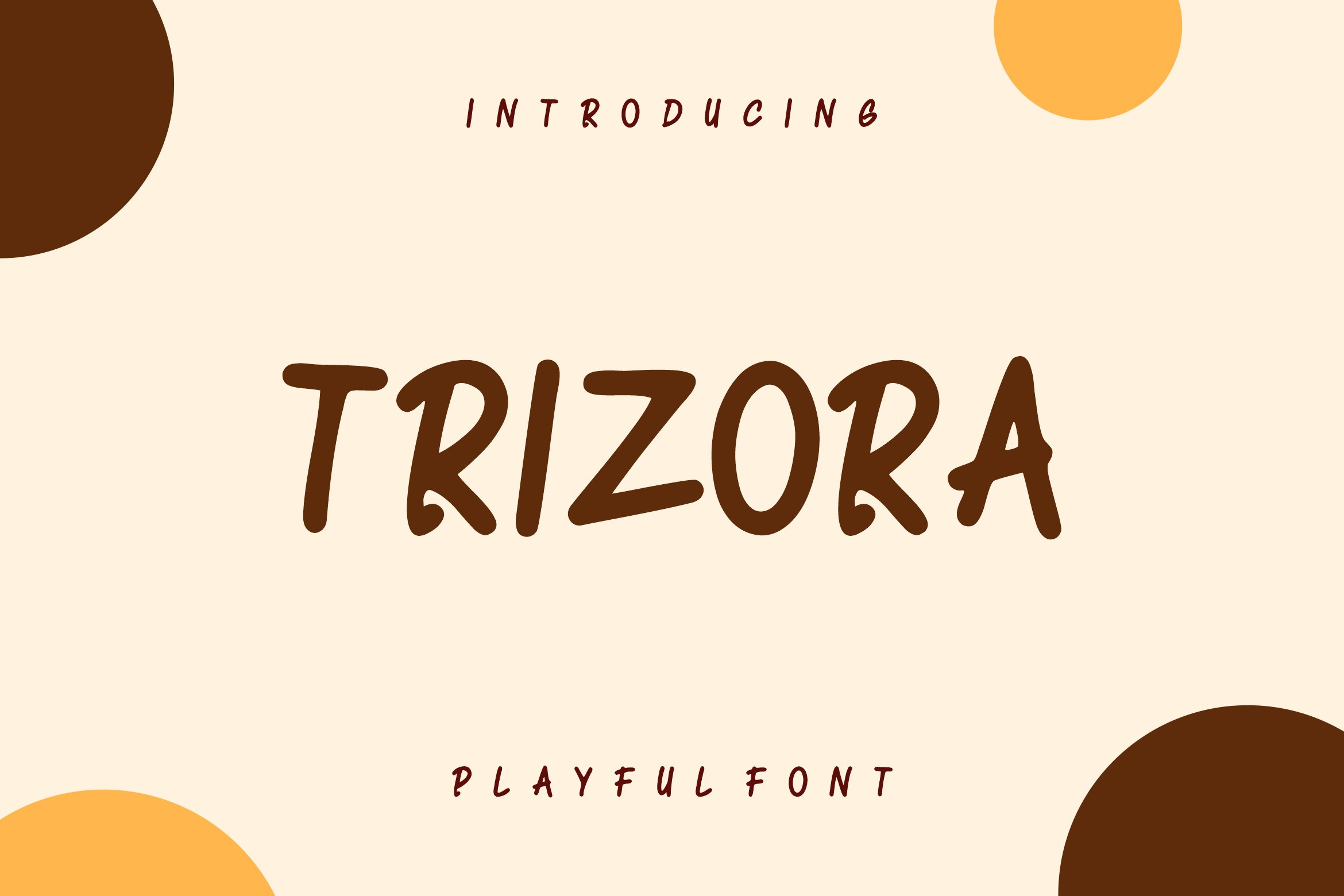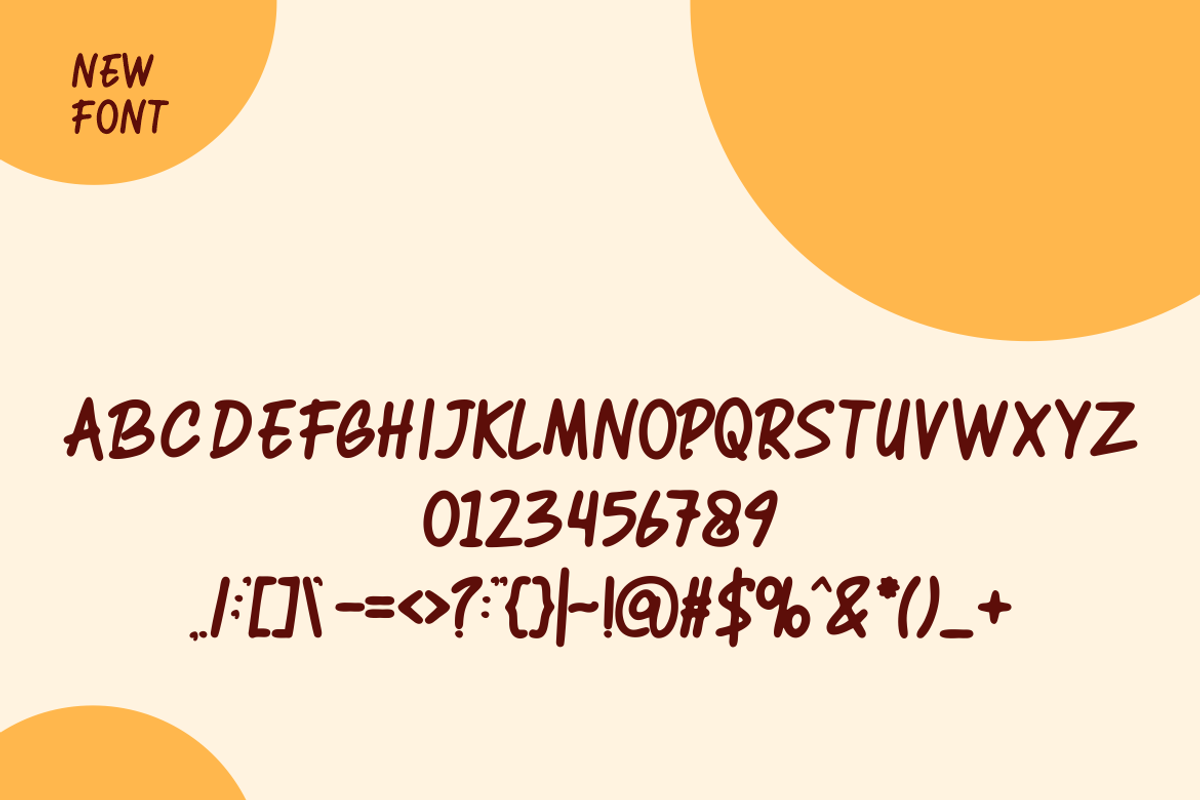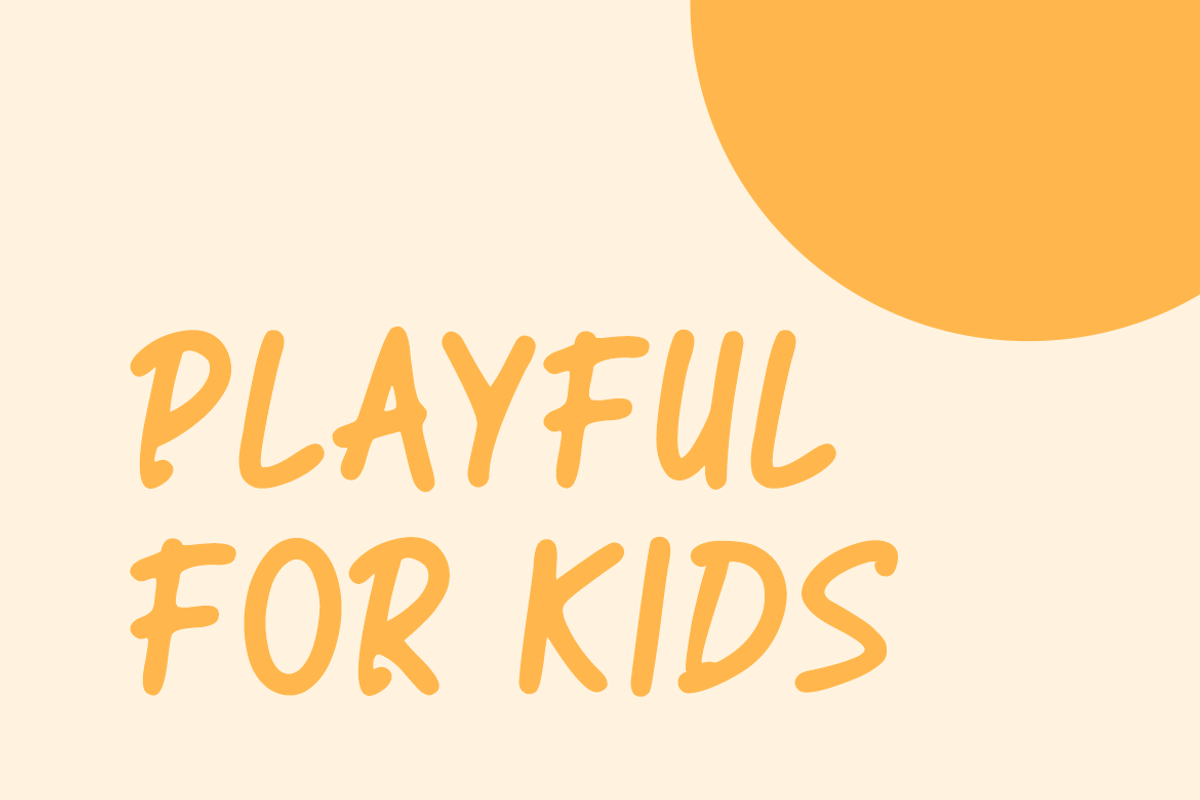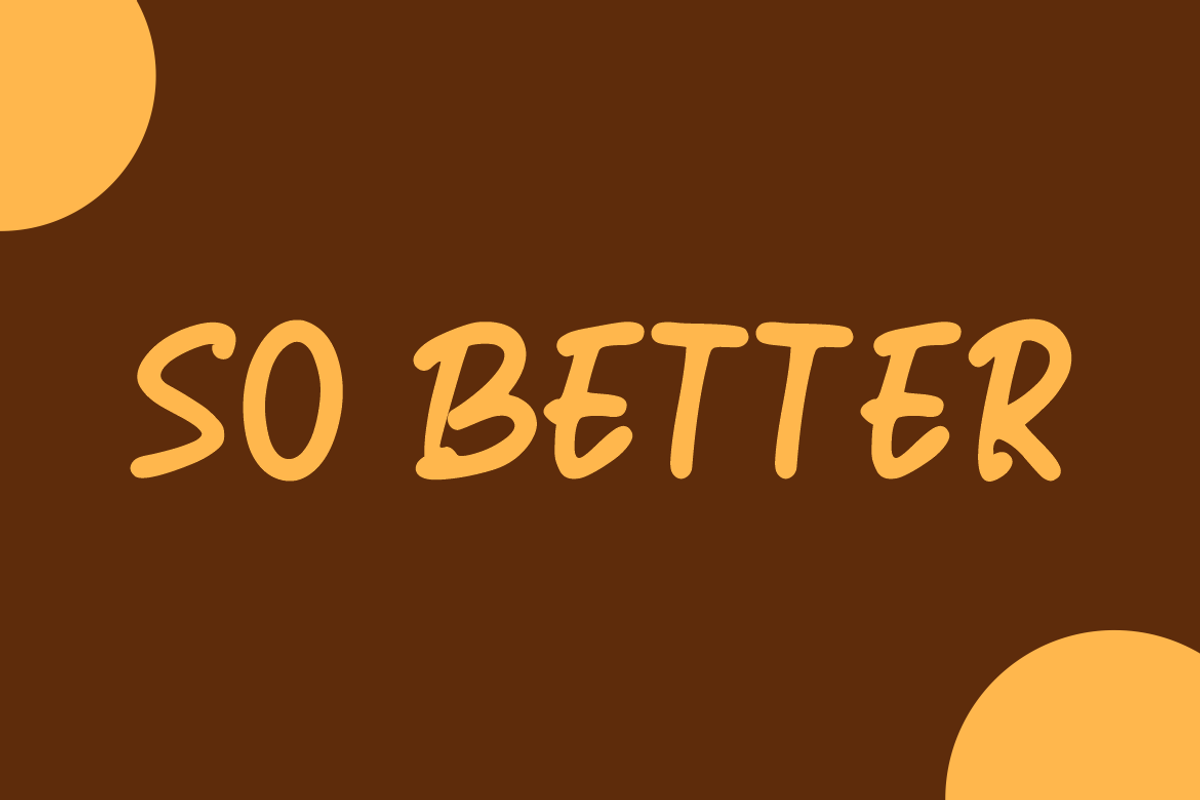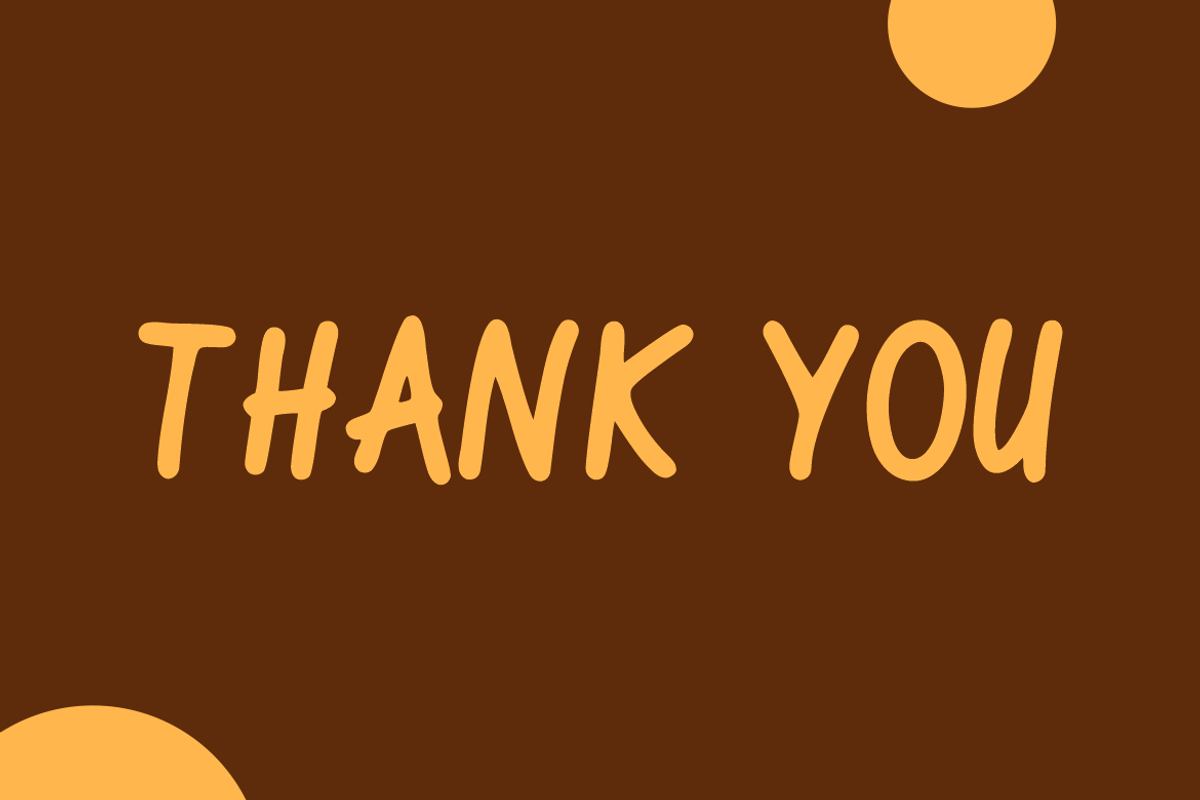
Trizora Palyful Font.
Trizora Palyful Font – Handwriting Script Font is a Cute Handwriting typeface, perfectly suitable for creating quotes, Wedding Invitations, lifestyle designs such as logos, title, magazine, and more.